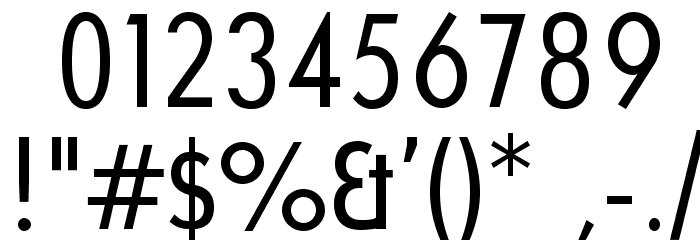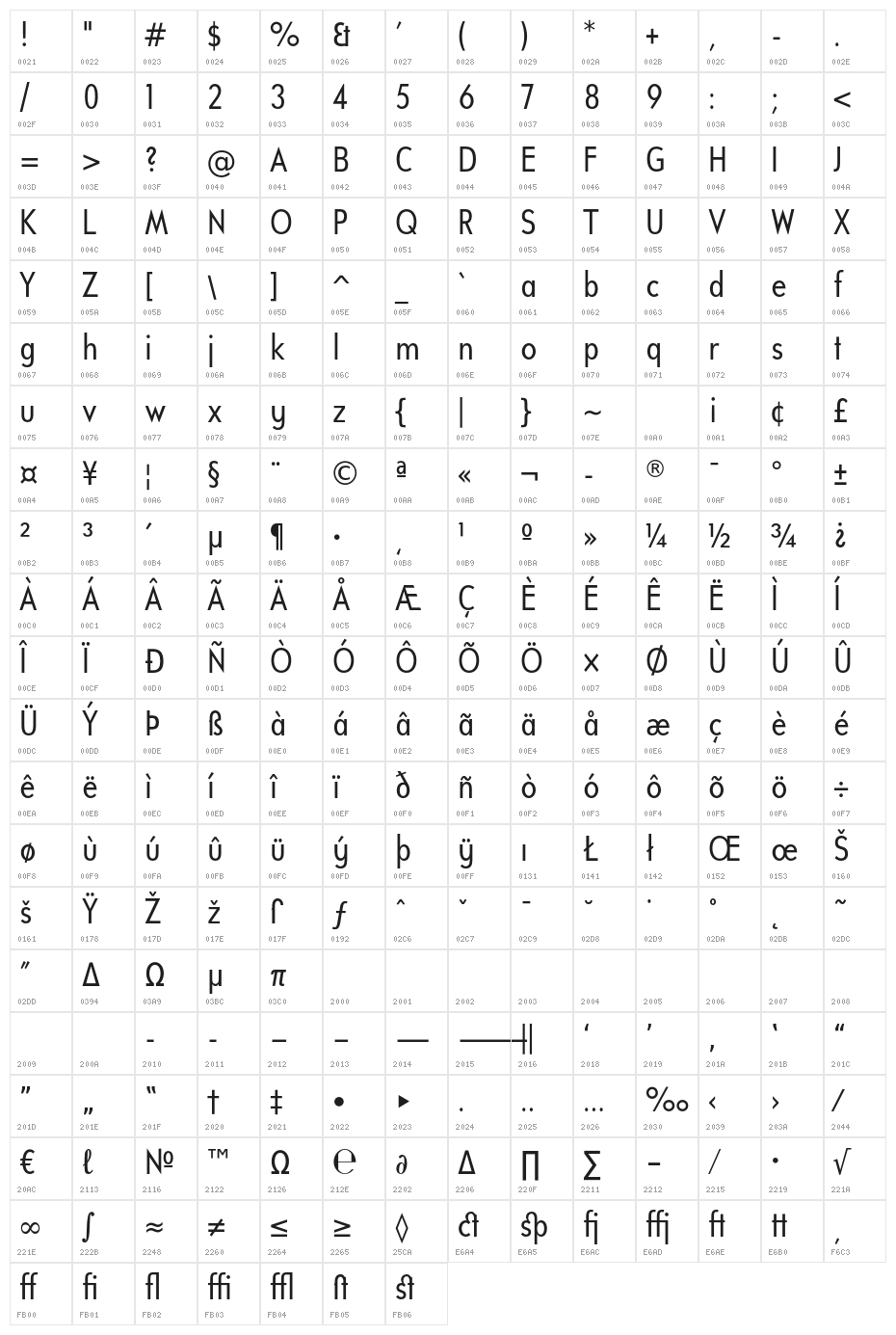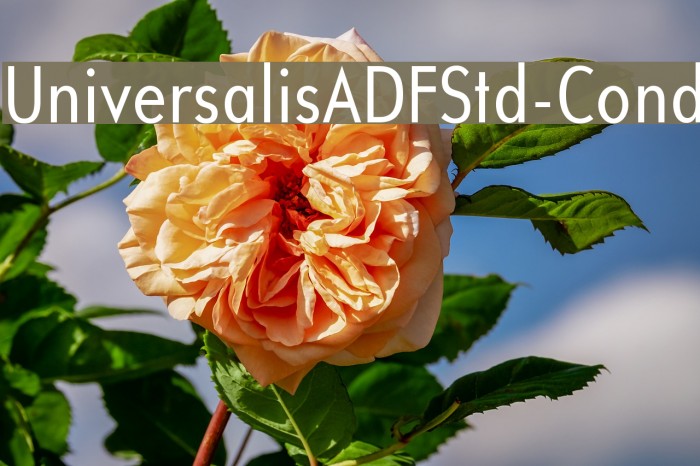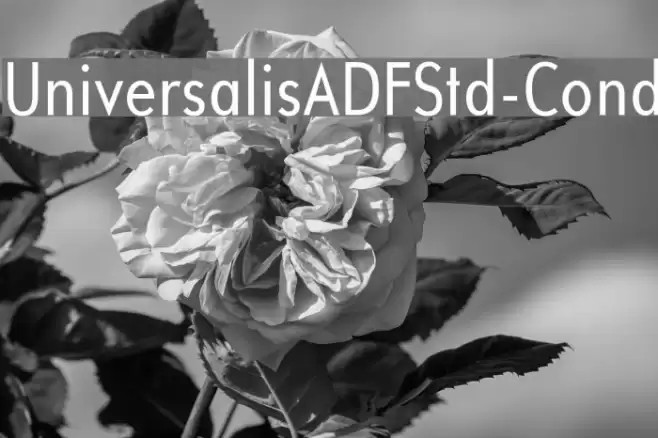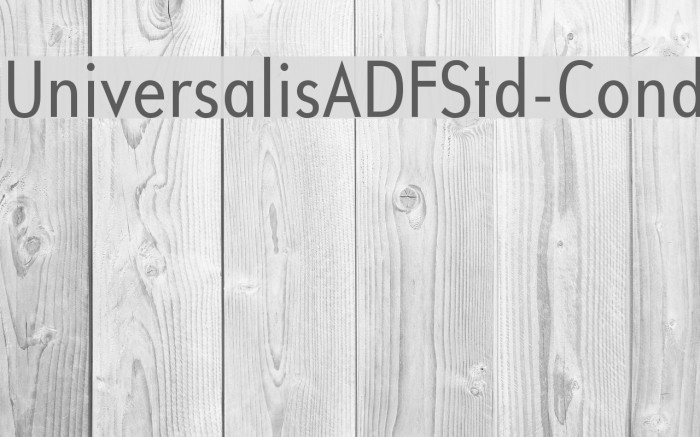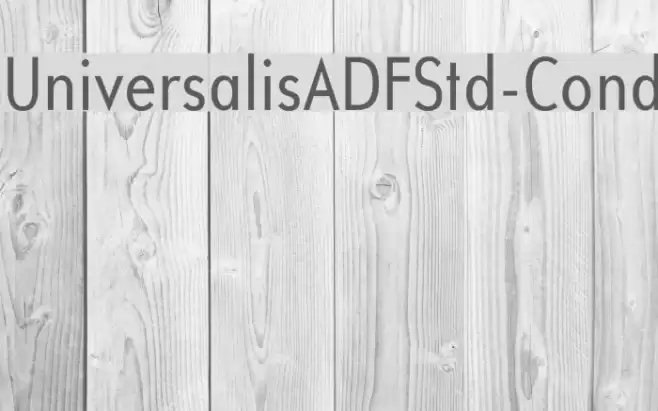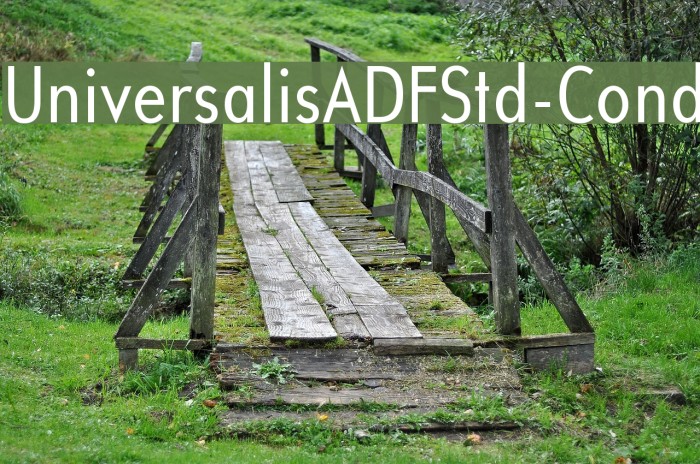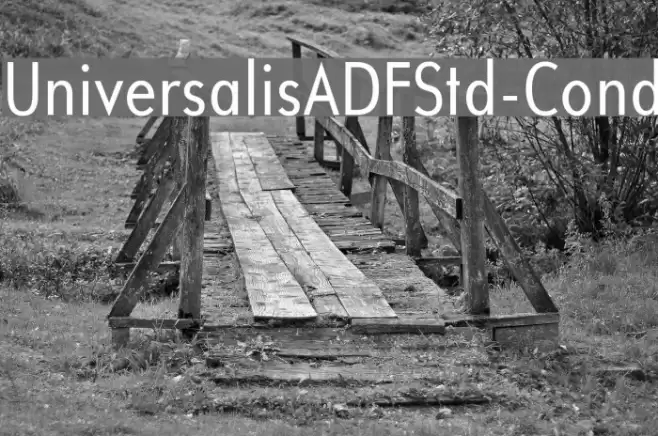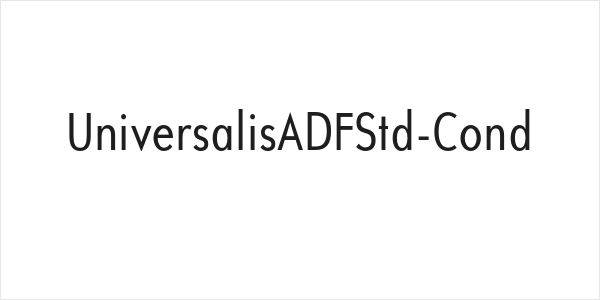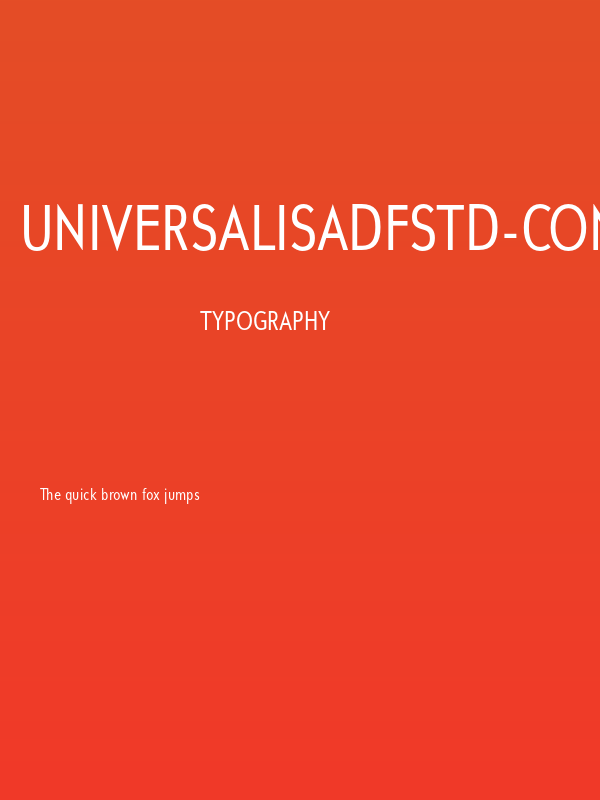
UniversalisADFStd-Cond Font
UniversalisADFStd-Cond Description
This font features a clean and modern sans-serif design with a condensed structure, making it highly legible and versatile. The characters are uniformly balanced, with a consistent stroke width that conveys a sense of stability and professionalism. The uppercase letters are bold and assertive, while the lowercase letters maintain a friendly and approachable appearance. The numerals are clear and easy to read, suitable for both digital and print media. Special characters are well-integrated, enhancing the font's utility across various applications. Overall, this font's simplicity and clarity make it ideal for a wide range of design projects.
| Proposed Projects | Ideal for corporate branding, editorial design, user interfaces, and signage. |